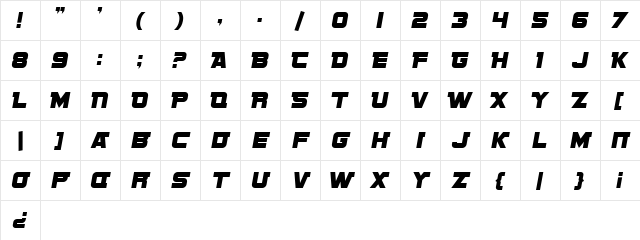
SF Sports Night NS Alternate brings high-energy athletic personality to the page - its confident, muscular forms are built for impact.
Pro Tip: Use SF Sports Night NS Alternate in all-caps headlines where its athletic energy can fully express itself. Pair with a solid, simple sans for supporting text.